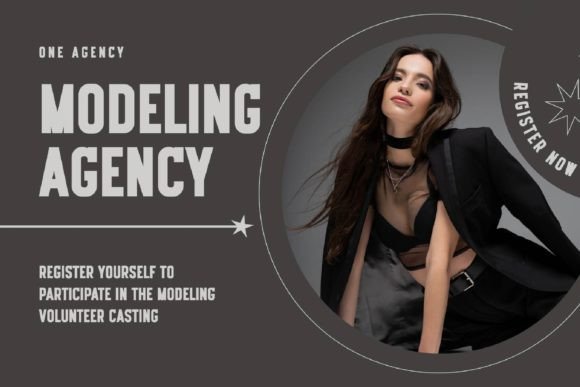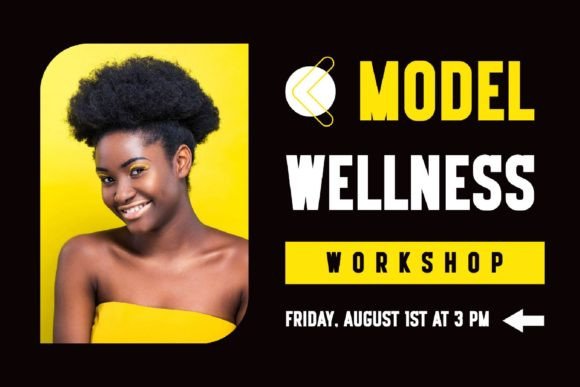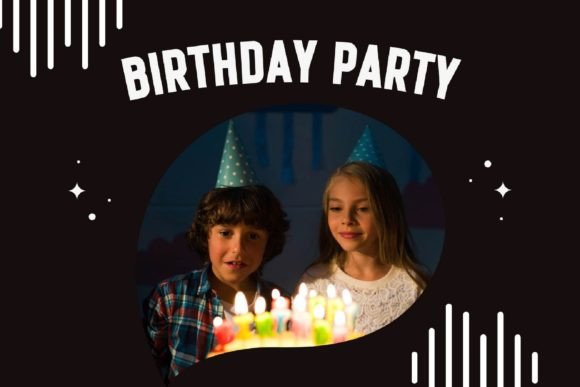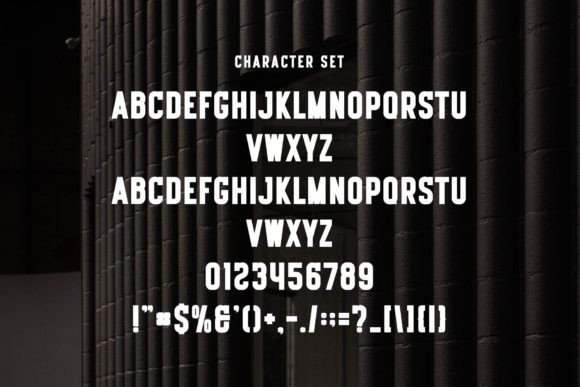
The Perfect Design Companion: Camaro Font
Have you ever been stuck in a design rut, staring at a blank screen, unsure of how to bring your creative vision to life? It’s a frustrating feeling, but one that can be easily overcome with the right tools. For designers, the perfect font can be the game-changer that sets their work apart from the rest. Enter Camaro Font, an elegant and modern sans serif font that’s sure to elevate any design project.
Designed with minimalism and clean lines in mind, Camaro Font is the perfect choice for book covers, magazines, social media posts, invitations, and so much more. Its versatility and sophistication make it a valuable asset for designers looking to add a touch of sophistication to their work.
Camaro Font Key Features
- Font Family: Camaro is a sans-serif font family designed for use in digital and print media.
- Character Set: Supports a wide range of languages, including Latin, Cyrillic, and Greek scripts.
- Unique Characteristics: Features a bold, modern design with clean lines and geometric shapes, making it suitable for use in logos, headings, and titles.
Camaro Font Review
The Camaro Font is a modern, sans-serif font that aims to evoke the feeling of speed and performance. Here’s my honest review of this font.
- Sharp and clean lines that give it a dynamic feel.
- Perfect for titles and headings due to its high contrast and clear readability.
- Wide range of weights and styles to suit various design needs.
- Can appear overly simplistic for body text or large blocks of content.
- Not ideal for long paragraphs or texts with complex typography.
- Some users may find the font too bold or overpowering.
Overall, the Camaro Font is a great choice for designers looking for a modern, high-energy font for titles, headings, or short text snippets. However, it may not be the best fit for extensive text content or delicate designs.
The Camaro Font is ideal for creating bold, attention-grabbing headlines and titles. It’s commonly used in:
Remember to use the Camaro Font sparingly and in context to avoid overwhelming the viewer.
Alternatives to Camaro Font
Akzidenz-Grotesk
Akzidenz-Grotesk is a sans-serif typeface that was first released in the 1890s. It is a popular choice for designers due to its clean and neutral aesthetic. Akzidenz-Grotesk is similar to Camaro Font in that it is a sans-serif typeface, but it has a more classic and timeless feel. Use Akzidenz-Grotesk for projects that require a professional and straightforward look.
Montserrat is a sans-serif typeface that was designed specifically for urban environments. It is a popular choice for designers due to its clean and modern aesthetic. Montserrat is similar to Camaro Font in that it is a sans-serif typeface, but it has a more geometric and futuristic feel. Use Montserrat for projects that require a modern and edgy look.
Open Sans is a sans-serif typeface that was designed to be highly legible and versatile. It is a popular choice for designers due to its clean and neutral aesthetic. Open Sans is similar to Camaro Font in that it is a sans-serif typeface, but it has a more friendly and approachable feel. Use Open Sans for projects that require a clean and easy-to-read look.
Inter is a sans-serif typeface that was designed to be highly legible and versatile. It is a popular choice for designers due to its clean and neutral aesthetic. Inter is similar to Camaro Font in that it is a sans-serif typeface, but it has a more modern and sleek feel. Use Inter for projects that require a clean and sophisticated look.